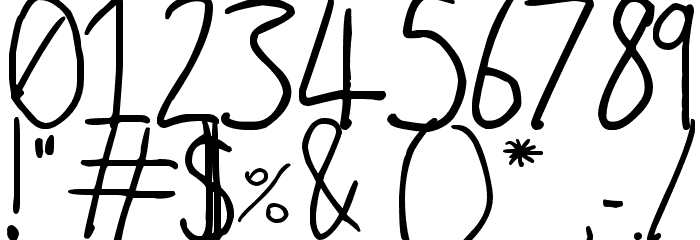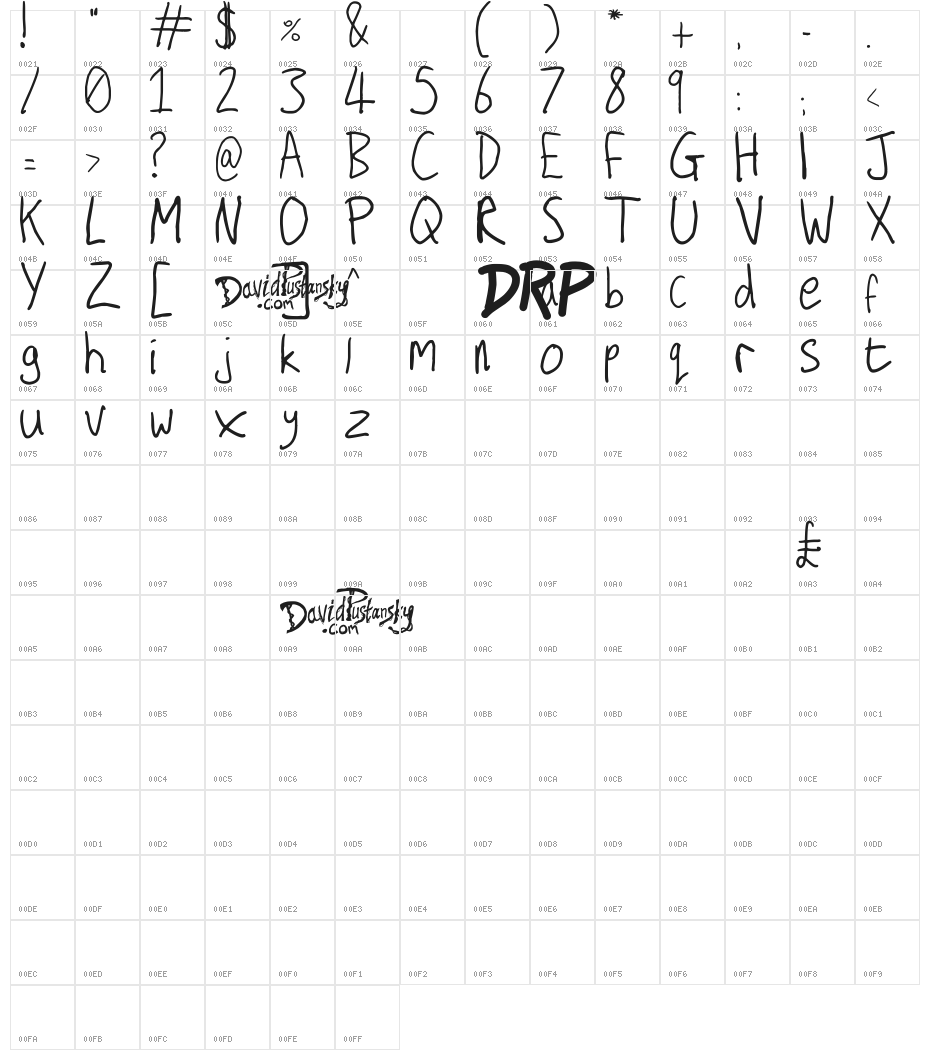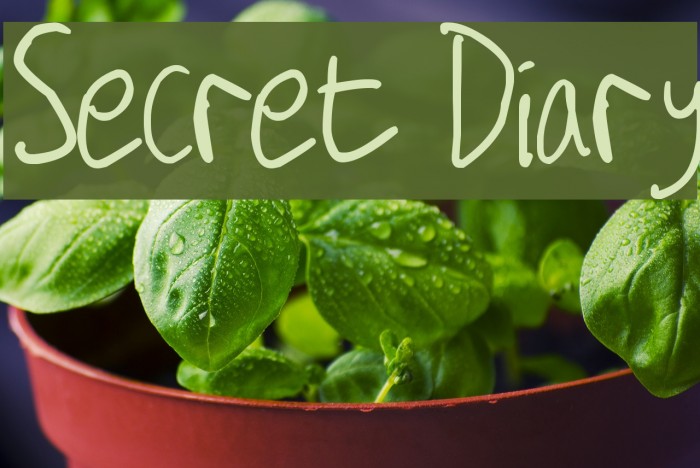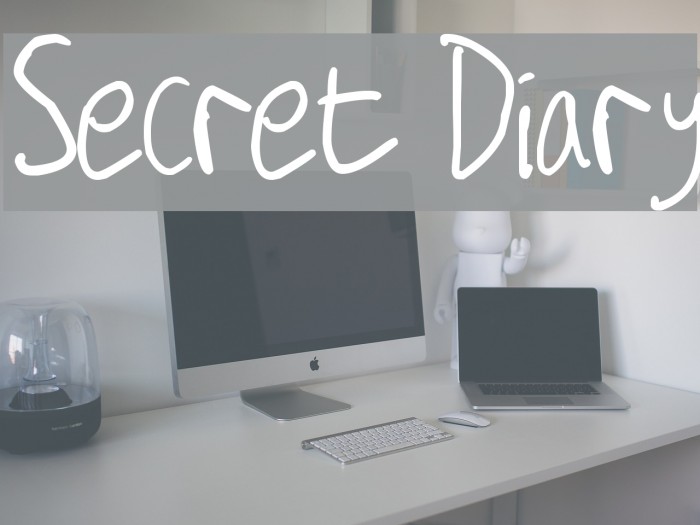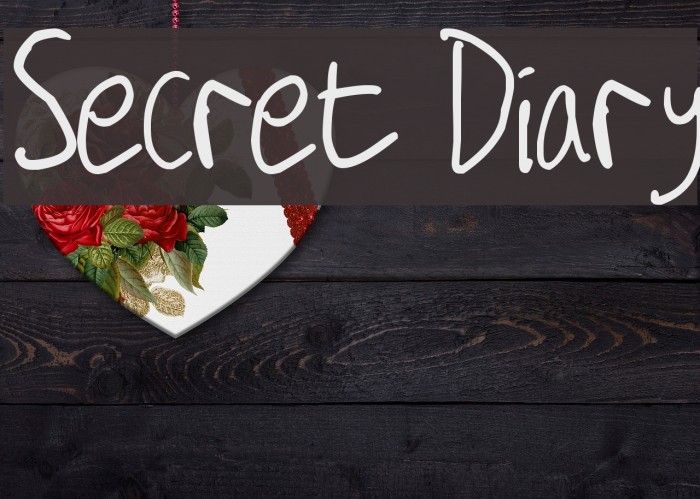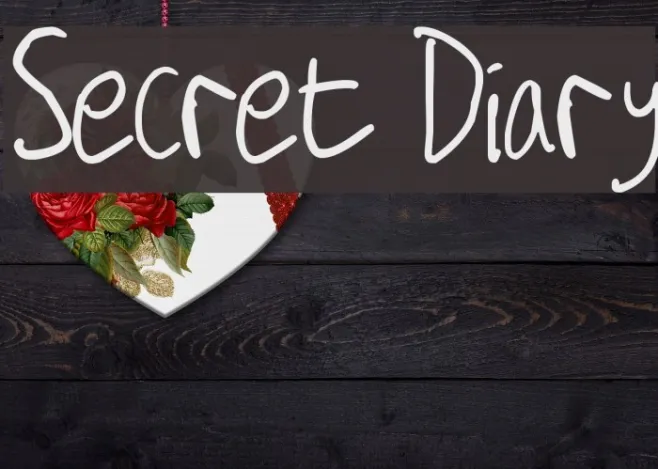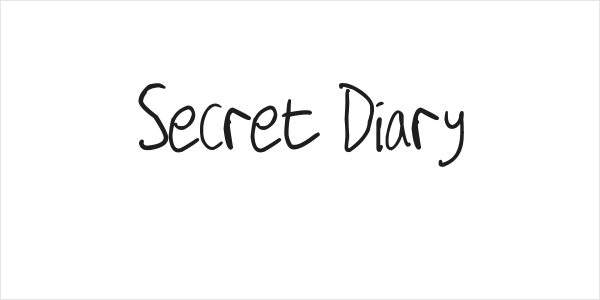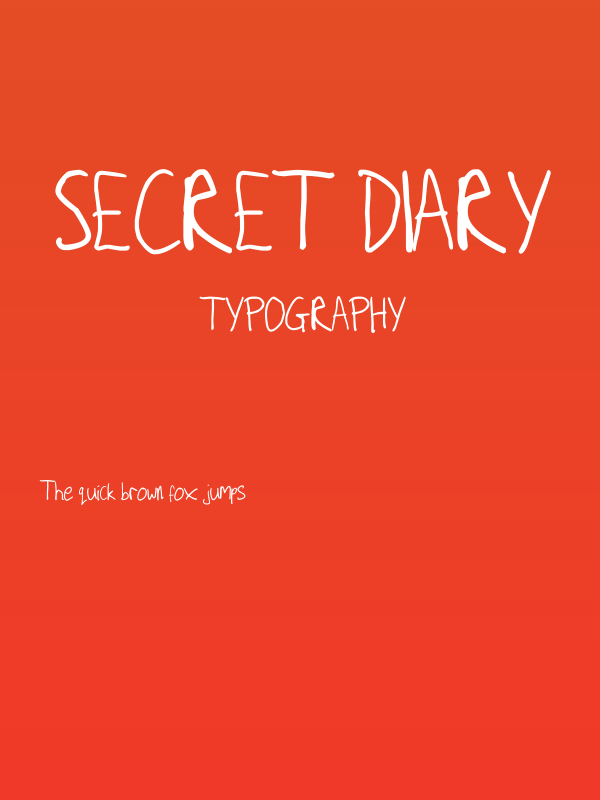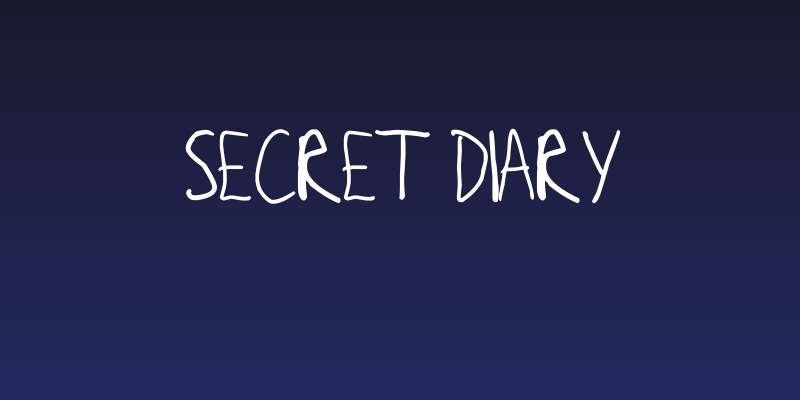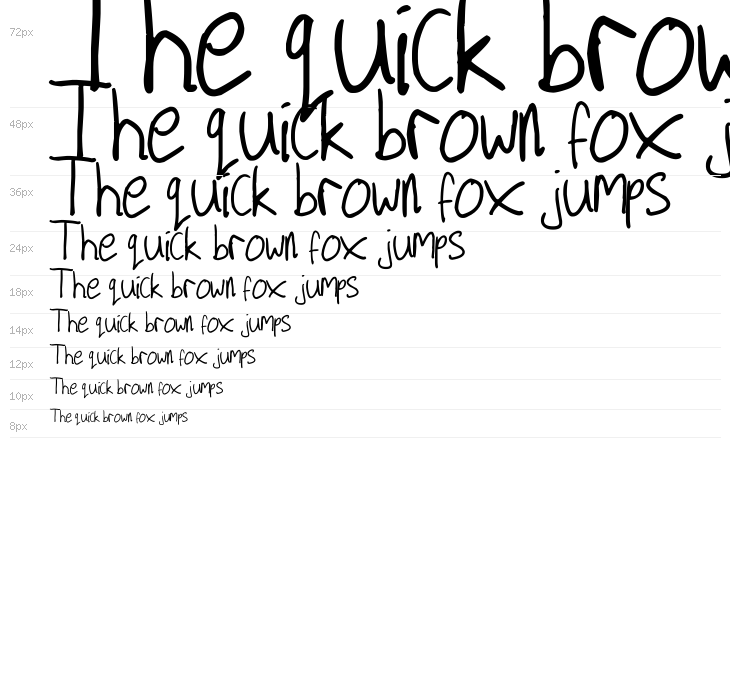
Secret Diary Font
Secret Diary Description
This font exudes a playful and casual handwritten style, characterized by its irregular strokes and organic flow. The uppercase letters are tall and slightly narrow, with a whimsical touch that adds personality to each character. The lowercase letters maintain a consistent style, with rounded edges and a relaxed, informal appearance. Numbers are distinct and easy to read, while special characters retain the same playful aesthetic. The overall look is reminiscent of a personal diary or a friendly note, making it ideal for projects that require a personal touch. The font's charm lies in its imperfections, giving it a unique and approachable feel.
| Use Case | Headlines, Informal text, Personal notes |
| Proposed Projects | Ideal for personal diaries, greeting cards, children's books, and informal invitations. |